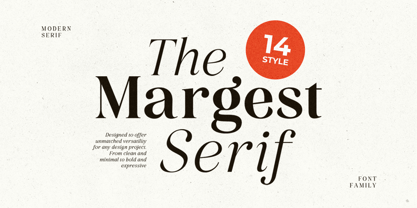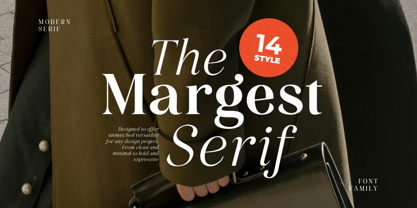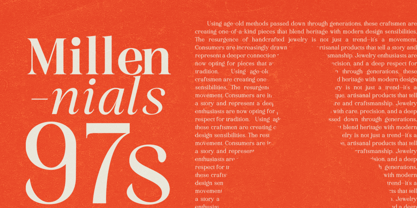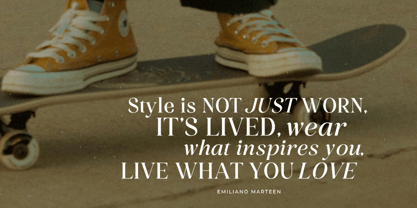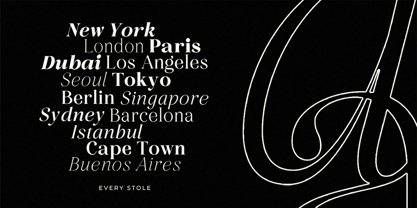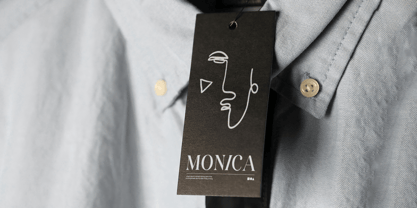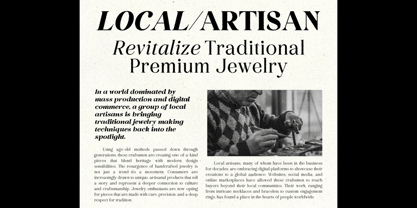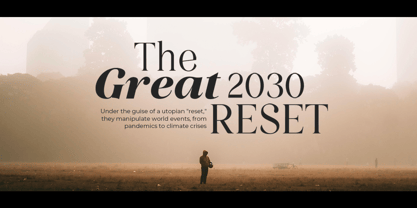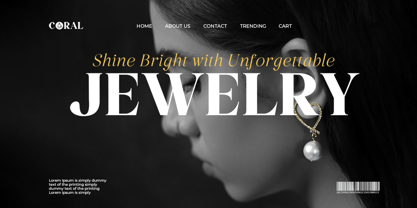
Margest
by Bale Type
The Margest Font Family was designed by Sarid Ezra, Dzikrul Aulia and published by Bale Type. Margest contains 14 styles and family package options. More about this family
Margest is a modern serif font family with classic and luxury looks. With 14 styles including light, regular, medium, semi bold, bold, extra bold, and black with italic each weight that you can choose to match your project. Choose light and regular for simplicity and clarity, or bold and extra bold for emphasis and bold character. And add italic style to enhance the looks. This font also support multi language!